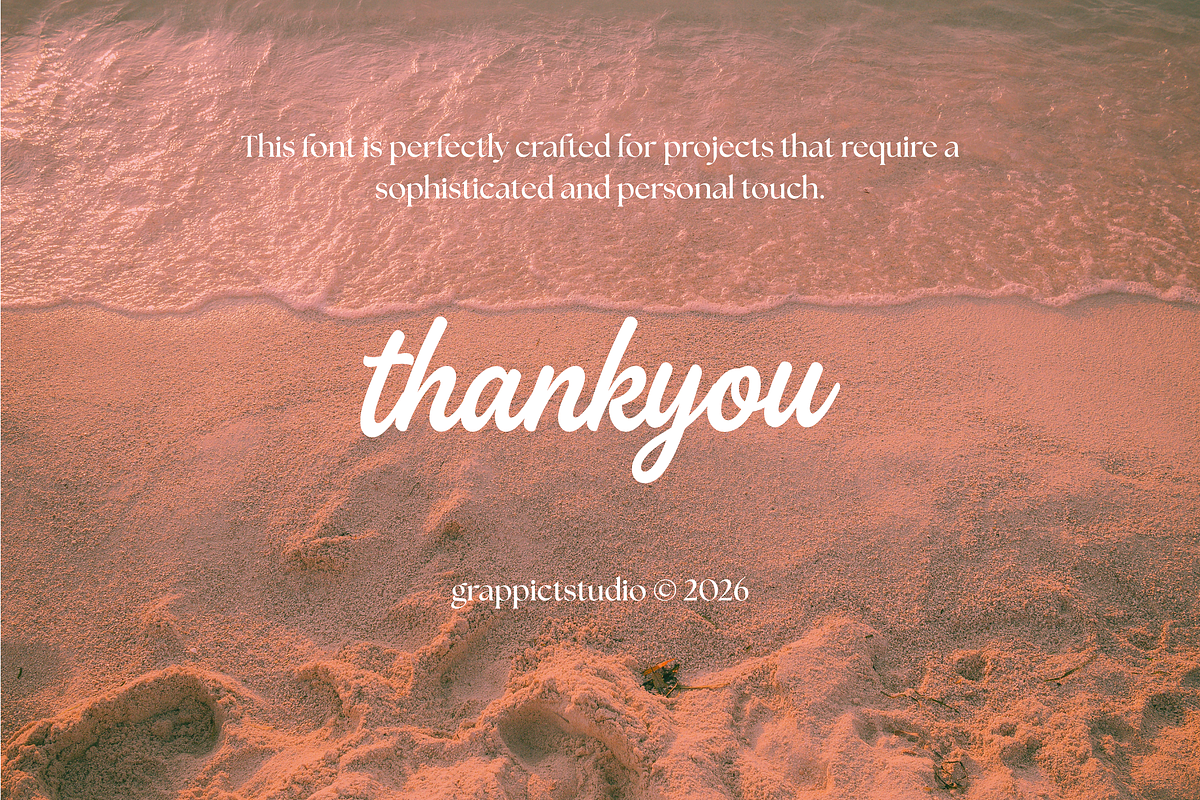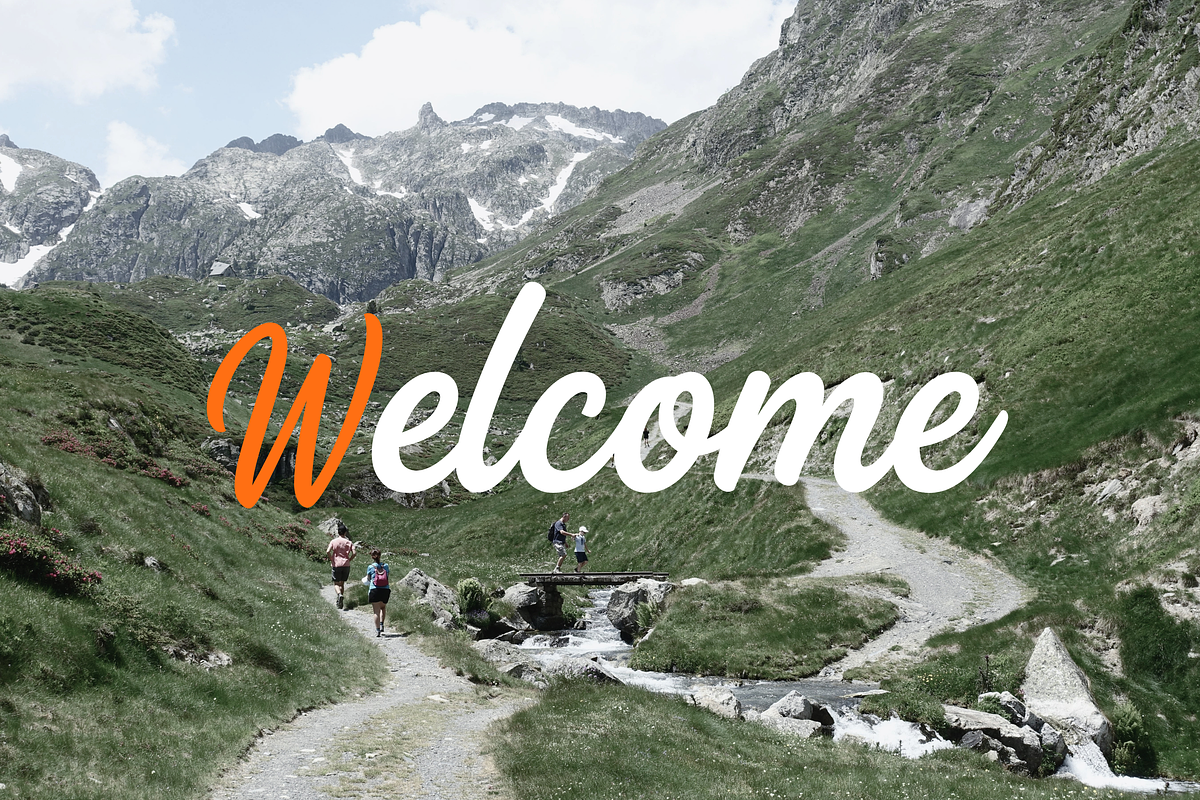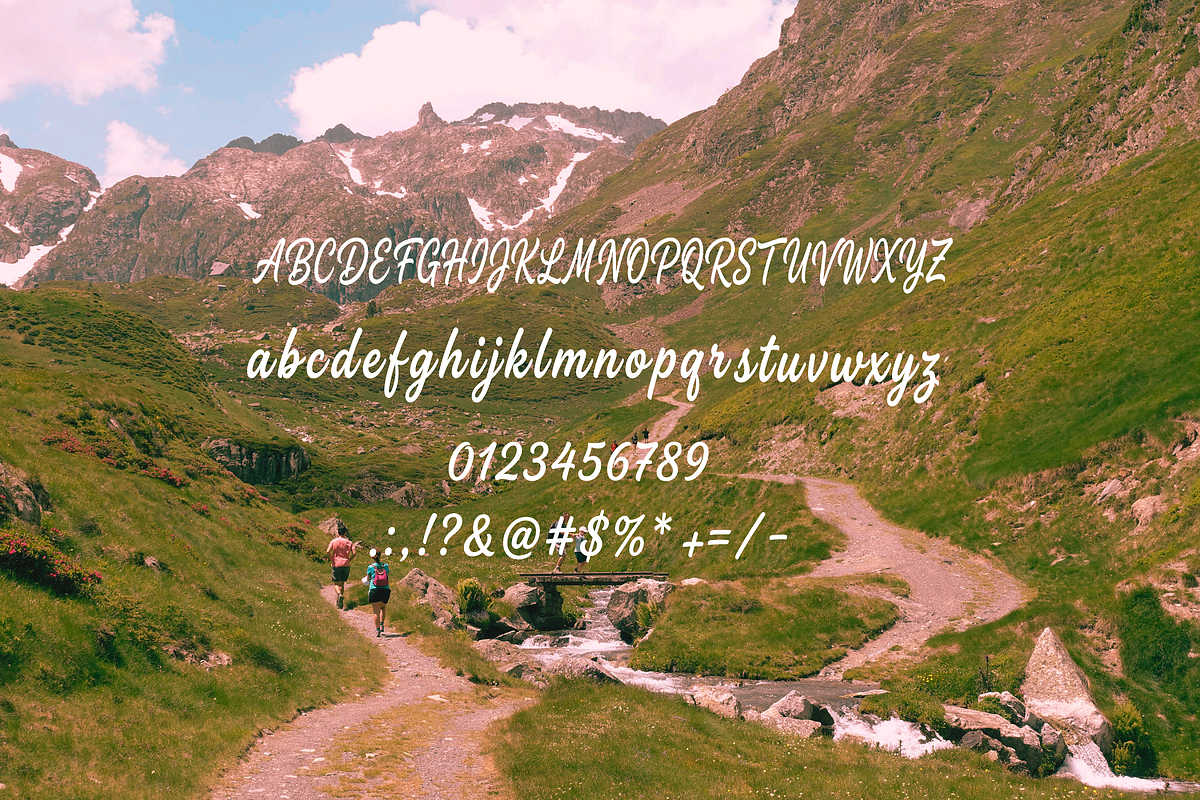
Peoneez Signature - Elegant Script
Introducing Peoneez Signature, a refined handwritten script font with a natural, elegant flow. This font is perfectly crafted for projects that require a sophisticated and personal touch.
Ideal for:
Logo & Branding Design
Photography Watermarks
Wedding Invitations
Typography & Quotes
Features Include:
Numerals
Punctuation & Symbols